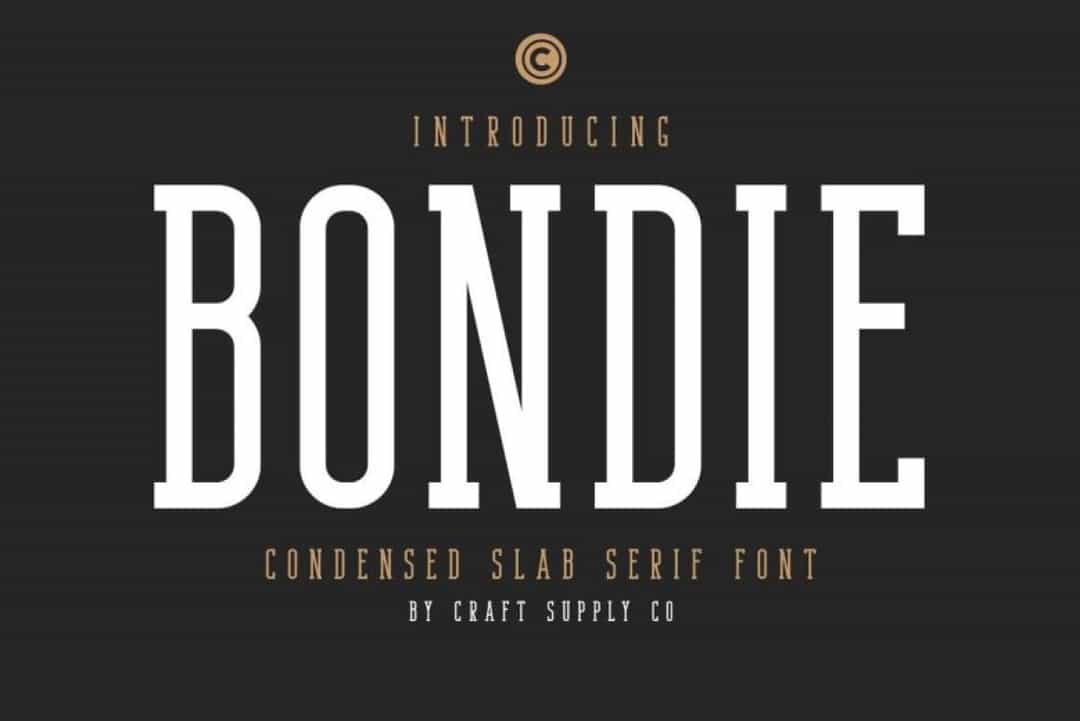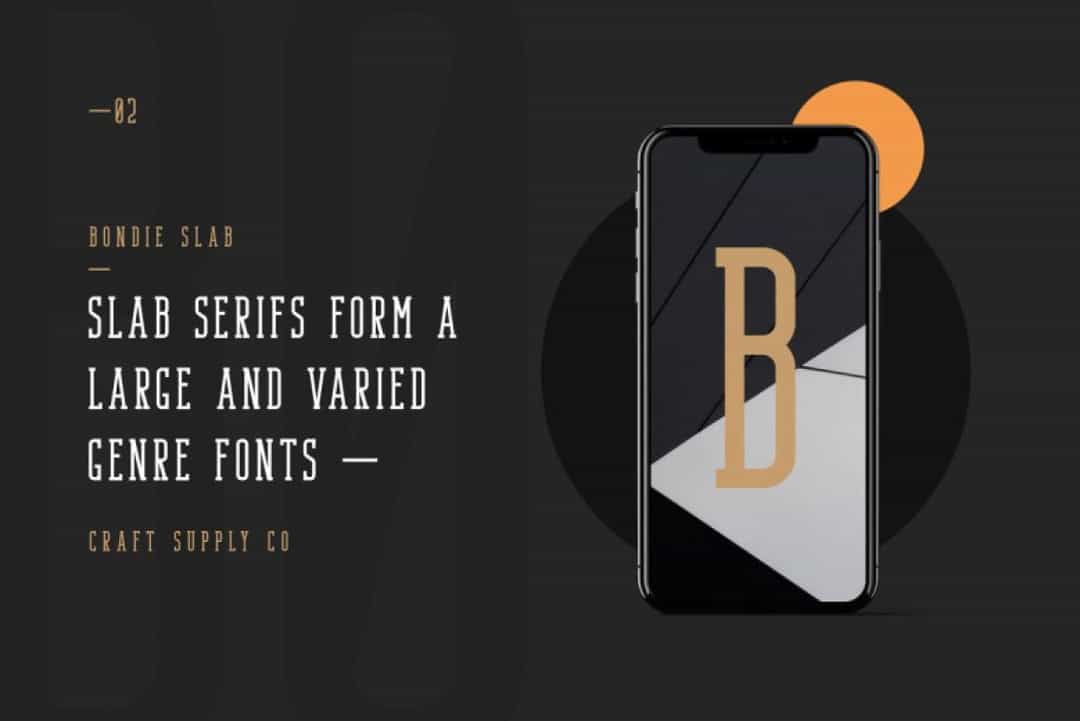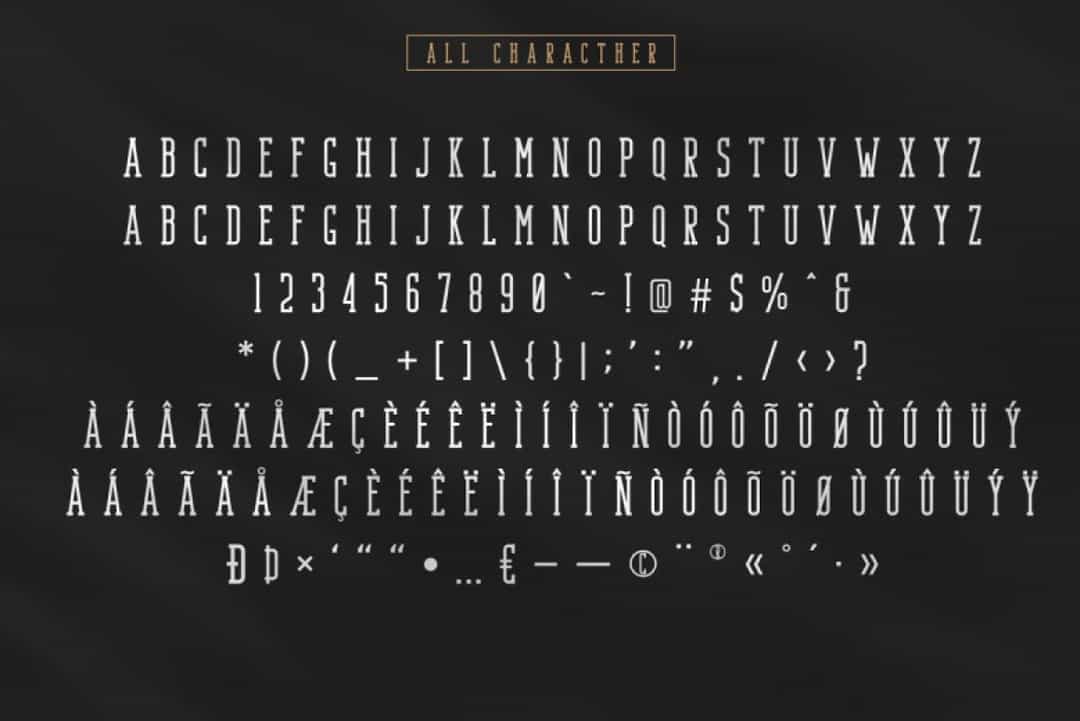
Bondie – Condensed Slab Serif Font is a beautiful condensed slab serif font with solid font files. It is built on the compact solid typeface, by unifying different styles. It is perfect for a Logo, greeting cards, quotes, posters, branding , name card designing and many other things.